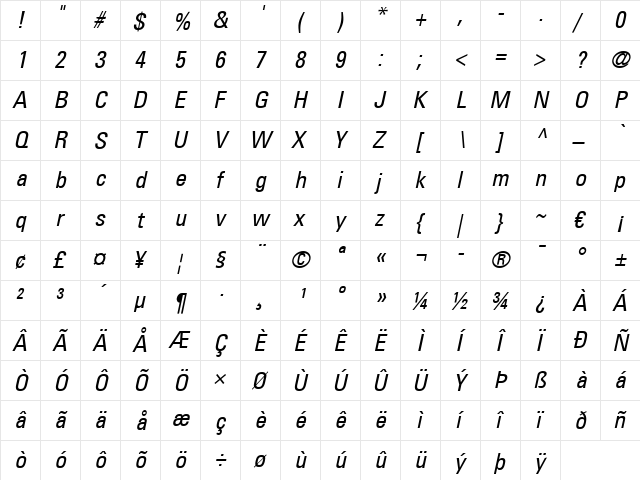
Univers LT 57 Condensed Italic Font Preview
Design Context for Univers LT 57 Condensed Typeface
Univers LT 57 Condensed takes a measured approach to typography — its balanced proportions and neutral character make it a reliable workhorse for both digital and print work. The slanted form adds forward momentum and visual energy. The delicate stroke weight brings airiness and refinement to layouts. Its narrow stance lets it pack a punch even in space-constrained designs.
Pro Tip: Use Univers LT 57 Condensed for emphasis, pull quotes, and subheadings where its slanted energy can add rhythm to the layout.